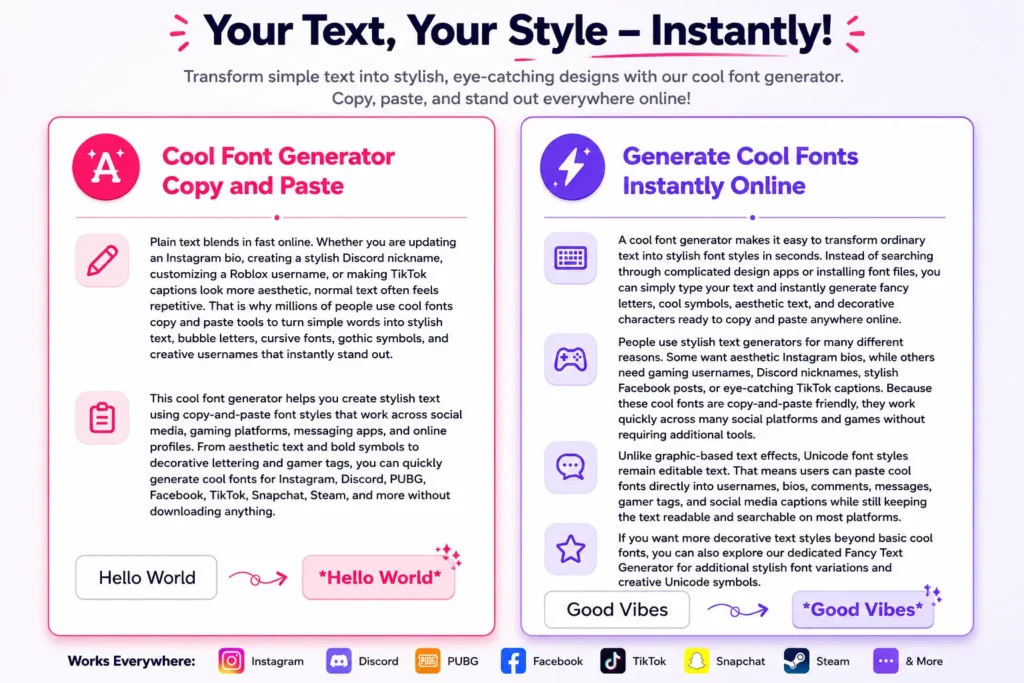
What Are Cool Fonts and How Do They Work?
Cool fonts are stylish text variations designed to make normal words look more creative, aesthetic, and attention-grabbing online. People commonly use them for Instagram bios, Discord usernames, TikTok captions, gaming profiles, and stylish social posts featuring decorative symbols, fancy letters, bubble text, and unique character styles.
Most cool font generators create these styles using Unicode characters that can be copied and pasted across different apps and websites. If you want to learn more about how Unicode text, fancy symbols, and stylish font generators actually work, you can read our detailed guide on Unicode Fonts Explained.
Cool Font Styles You Can Copy and Paste
One reason cool font generators became so popular is the huge variety of text styles available. Different font styles create different moods, aesthetics, and online identities. Some styles look elegant and handwritten, while others feel bold, edgy, artistic, or gaming-focused.
Instead of using the same font style everywhere, many users combine multiple text styles depending on the platform, profile, or audience they want to target.
Aesthetic
Gaming
Cursive
Bold
Cursive & Calligraphy Fonts
Cursive fonts create a smooth handwritten appearance that feels elegant, stylish, and personal. These font styles are commonly used for aesthetic Instagram bios, stylish TikTok captions, profile names, and creative social media posts because they make ordinary text appear more polished and artistic.
Calligraphy fonts and script lettering are also popular for invitations, digital branding, decorative usernames, and personalized online identities. Many users prefer cursive text because it stands out without becoming difficult to read.
Popular Uses of Cursive Fonts
Bubble Letters & Aesthetic Fonts
Bubble letters are playful, rounded, and visually expressive. They are especially popular among users creating aesthetic bios, cute usernames, decorative captions, and personalized social media text. Bubble fonts often make profiles feel more creative, friendly, and visually unique.
Aesthetic font styles are widely used across TikTok, Snapchat, Instagram, Pinterest, and Tumblr because they help users create a softer and more personalized online appearance. Many people combine aesthetic symbols, cute text, and decorative Unicode characters to build visually consistent usernames and bios.
These styles work particularly well for:
- ✨ aesthetic captions
- 💬 stylish comments
- 👤 cute usernames
- 🎀 decorative profile names
- 📱 personalized social posts
Gothic, Old English & Medieval Fonts
Gothic fonts and old English lettering create a darker, dramatic, and medieval-inspired appearance. These font styles are commonly used for edgy usernames, gaming profiles, tattoo inspiration, music branding, and bold social media aesthetics.
Because gothic text looks highly distinctive, many users choose it for Discord nicknames, gamer tags, YouTube branding, and stylish profile names that need a stronger visual identity.
Popular Uses for Gothic Fonts
gaming usernames
dark aesthetic bios
music branding
medieval-style text
YouTube channel names
bold profile identities
If you want darker blackletter styles, medieval lettering, and decorative gothic symbols, explore our Gothic Font Generator for more specialized text styles.
Bold, Glitch & Stylish Text Fonts
Bold text styles instantly attract attention and improve visibility in captions, bios, comments, and profile names. Many creators use bold Unicode text to highlight important words or make usernames stand out inside crowded social feeds.
Glitch text and distorted font styles create a futuristic or chaotic appearance that is especially popular in gaming communities, streaming profiles, Discord servers, and creative digital content. These styles often combine unusual Unicode symbols, decorative characters, and stylized spacing to create a more unique visual effect.
Stylish text fonts are frequently used for:
Tattoo, Graffiti & Artistic Font Styles
Tattoo fonts and graffiti lettering are designed for expressive, artistic, and visually bold text styles. Many users explore these fonts for logo inspiration, nickname styling, gamer identities, and decorative online branding.
Graffiti text styles often feature exaggerated curves, edgy symbols, and urban-inspired lettering that work well for gaming communities and creative social profiles. Tattoo-style fonts usually feel sharper, more dramatic, and visually detailed.
Popular Uses for Artistic Fonts
Cool Fonts
Copy & Paste Anywhere
Instagram bios and captions
TikTok profile names
Discord nicknames
Roblox usernames
PUBG gamer tags
Minecraft profiles
Facebook posts
Twitter display names
Snapchat usernames
YouTube descriptions
Steam nicknames
aesthetic comments and status updates
Because stylish Unicode text works through copy and paste, users can quickly experiment with different font styles across multiple apps, platforms, and online communities.